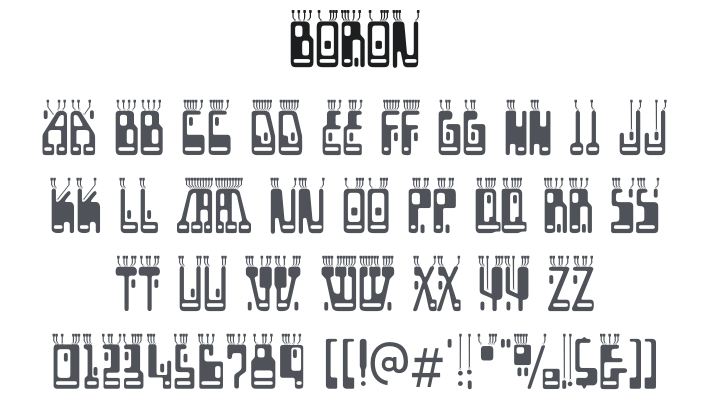
Boron Font
About Boron
Boron is a MICR-inspired retro-tech display typeface where each blocky, geometric letter appears to have conductive circuit pathways running through it — as if the text itself is a printed circuit board. Its structured, robotic feel balances futuristic precision with vintage computing charm. Great for sci-fi interfaces, electronics branding, tech posters, and cyberpunk-themed designs.